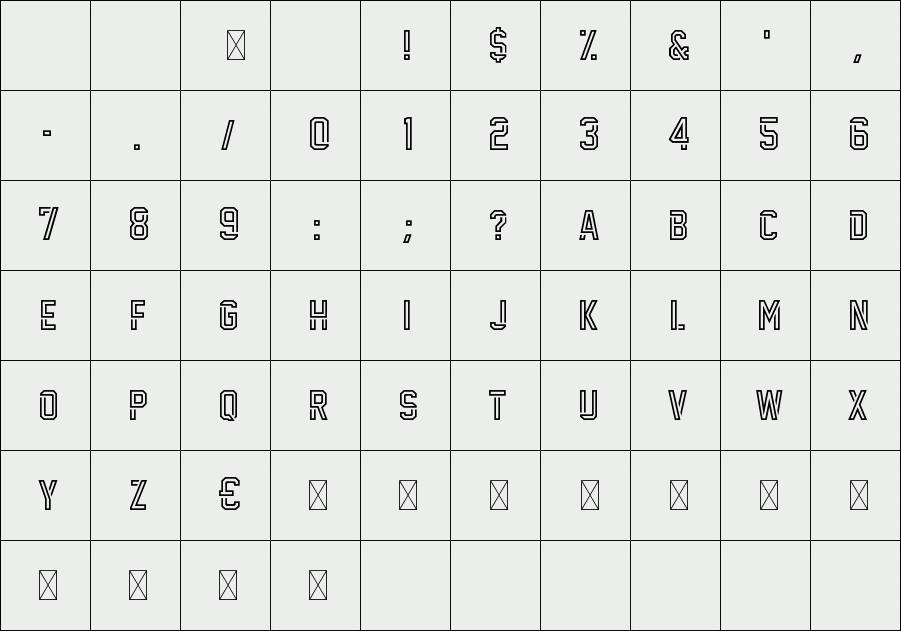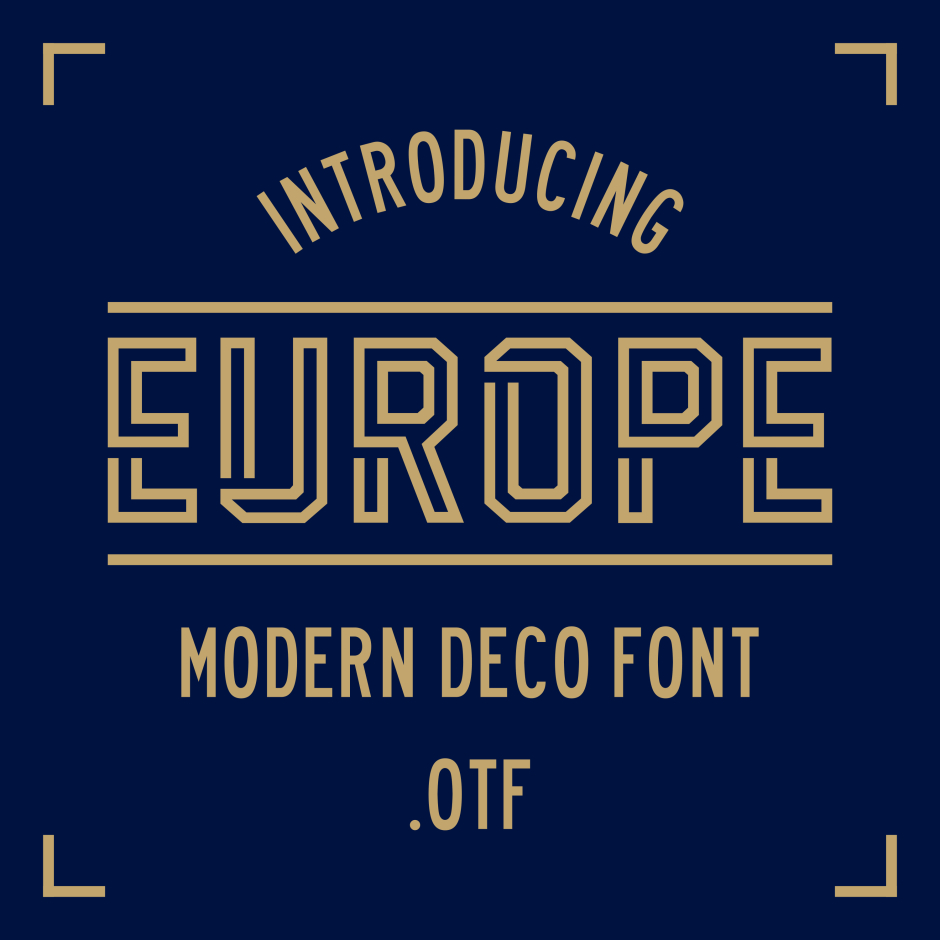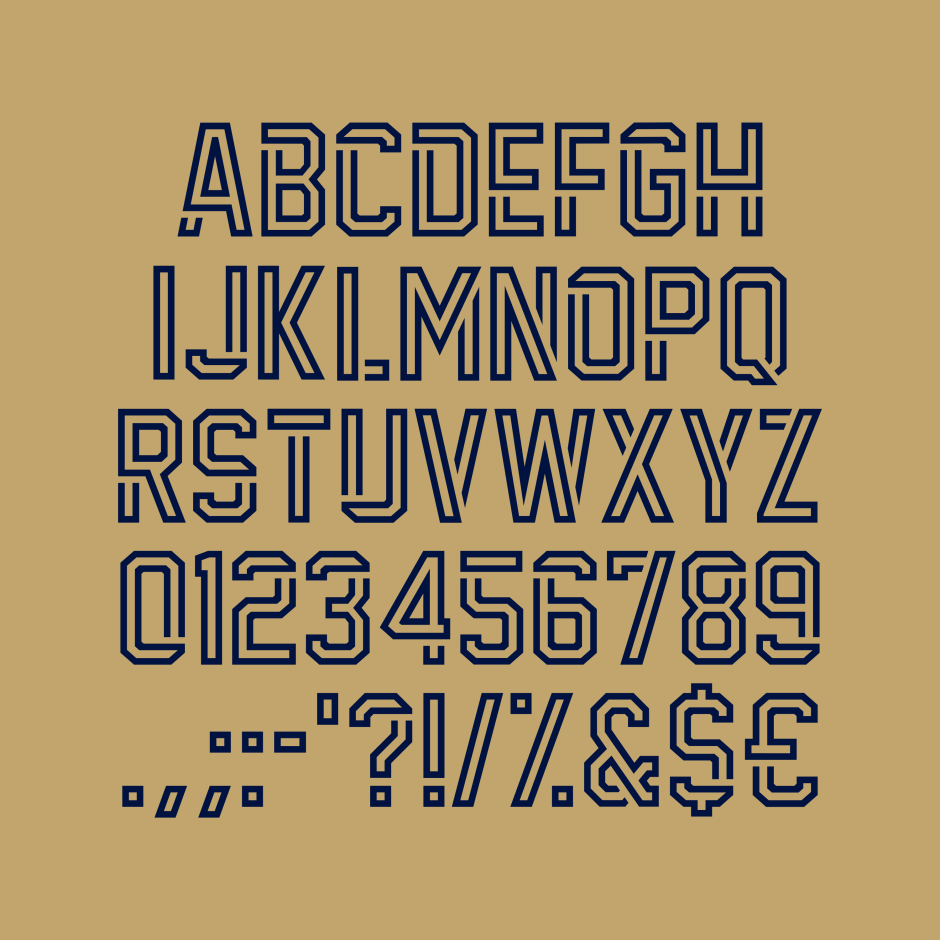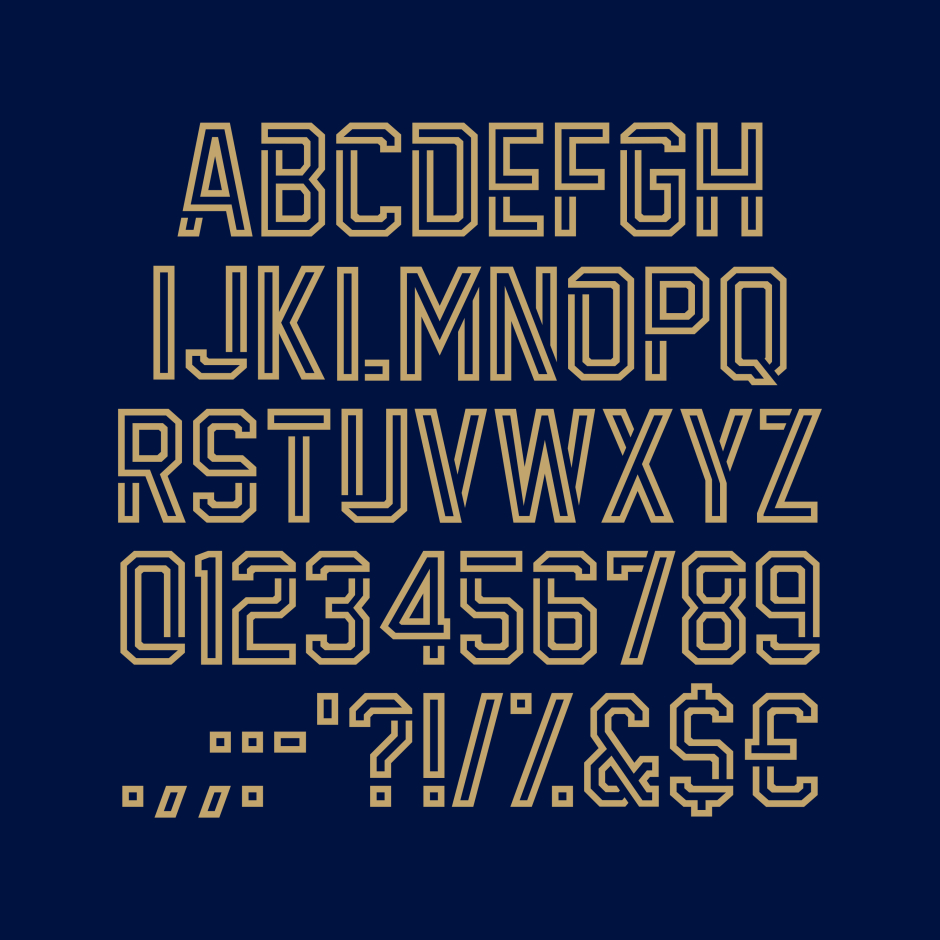
EUROPE
EUROPE is a typography inspired by the decorative arts.
Including numbers and punctuation and of course a Euro sign.
Designer: DAVY LE CHEVANCE